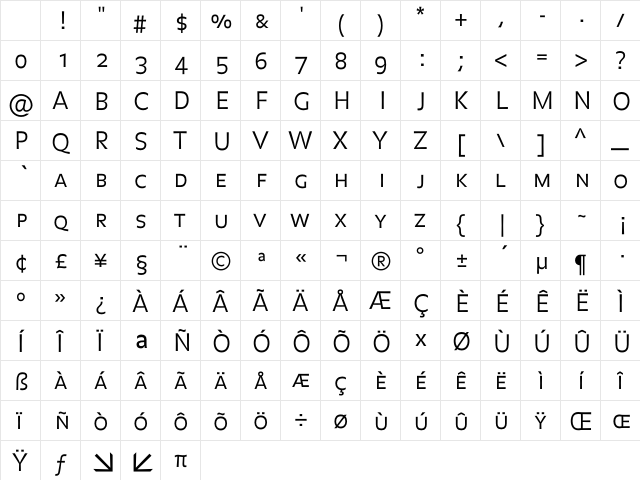
Complete BalanceLight Caps glyph index. Displaying only characters natively supported by BalanceLight Caps font.
BalanceLight is a composed and adaptable typeface that performs quietly and consistently across a wide range of design contexts. Its slender proportions lend an understated elegance to any composition.